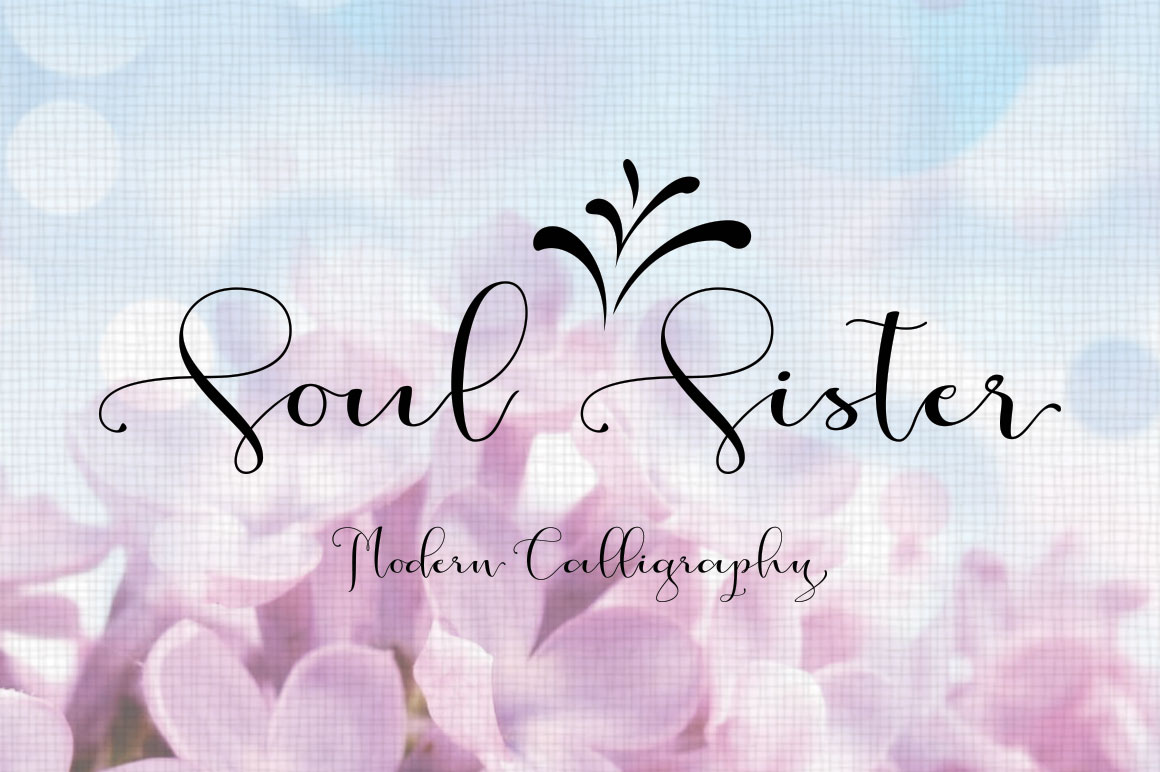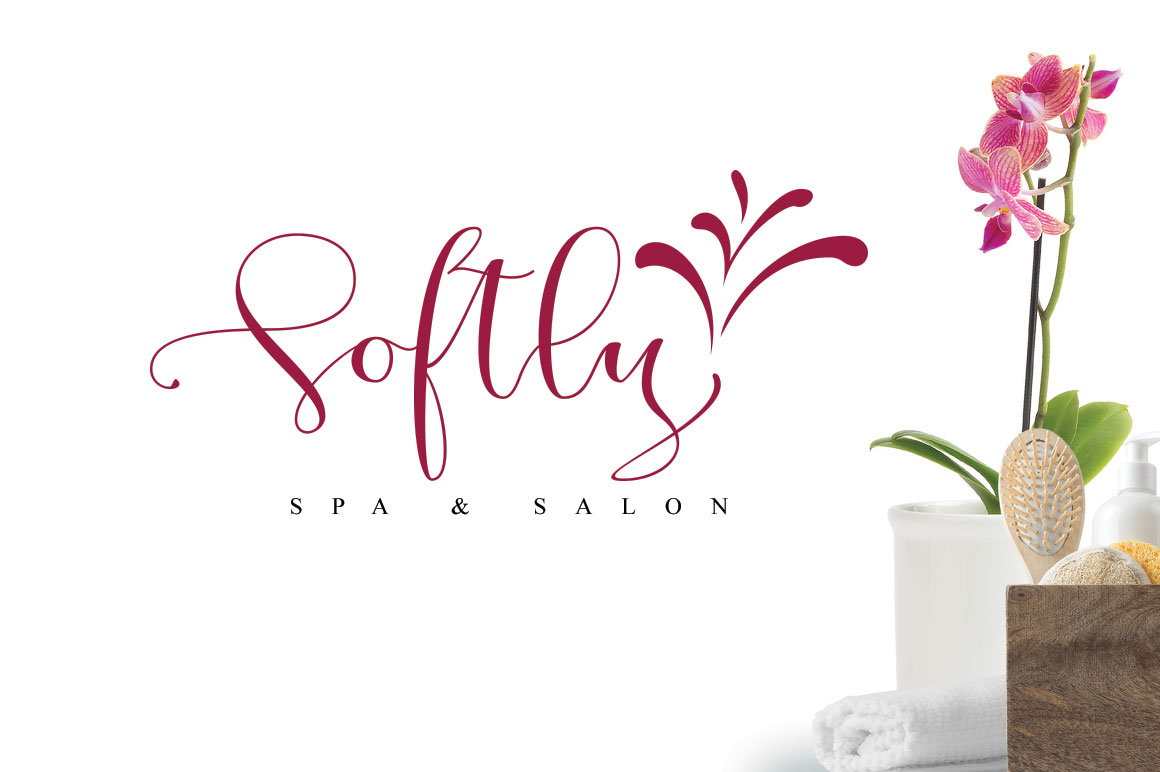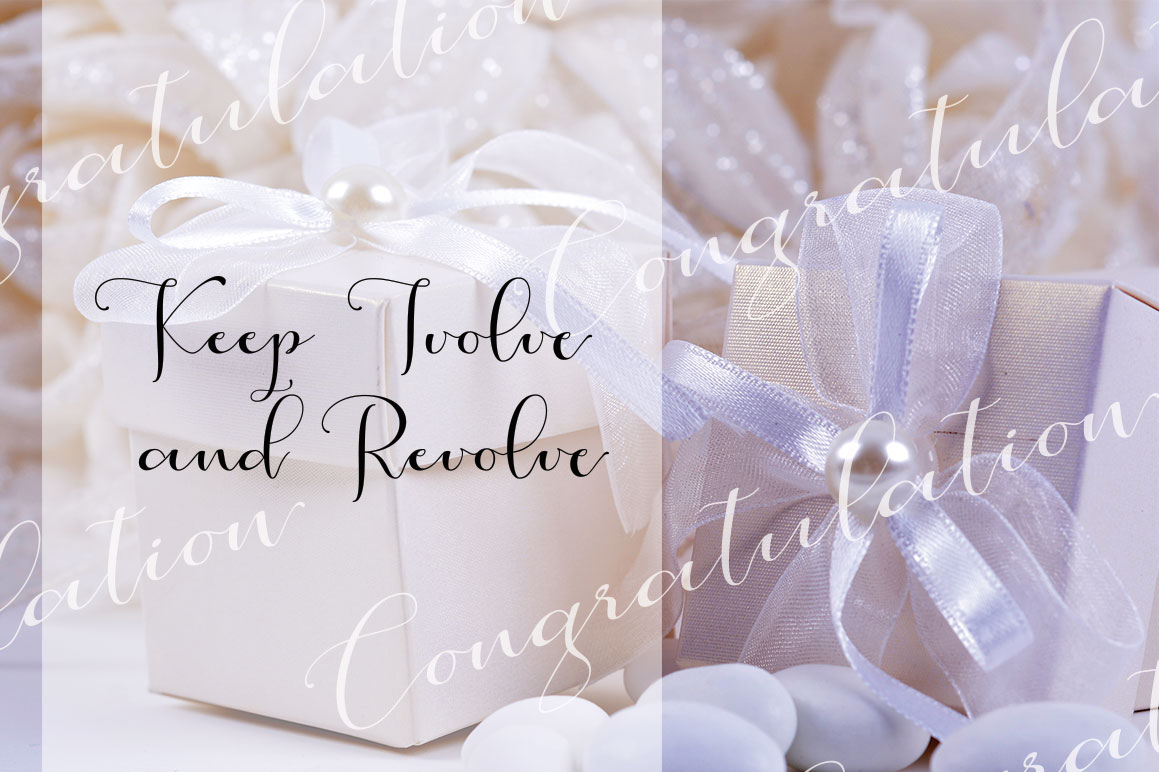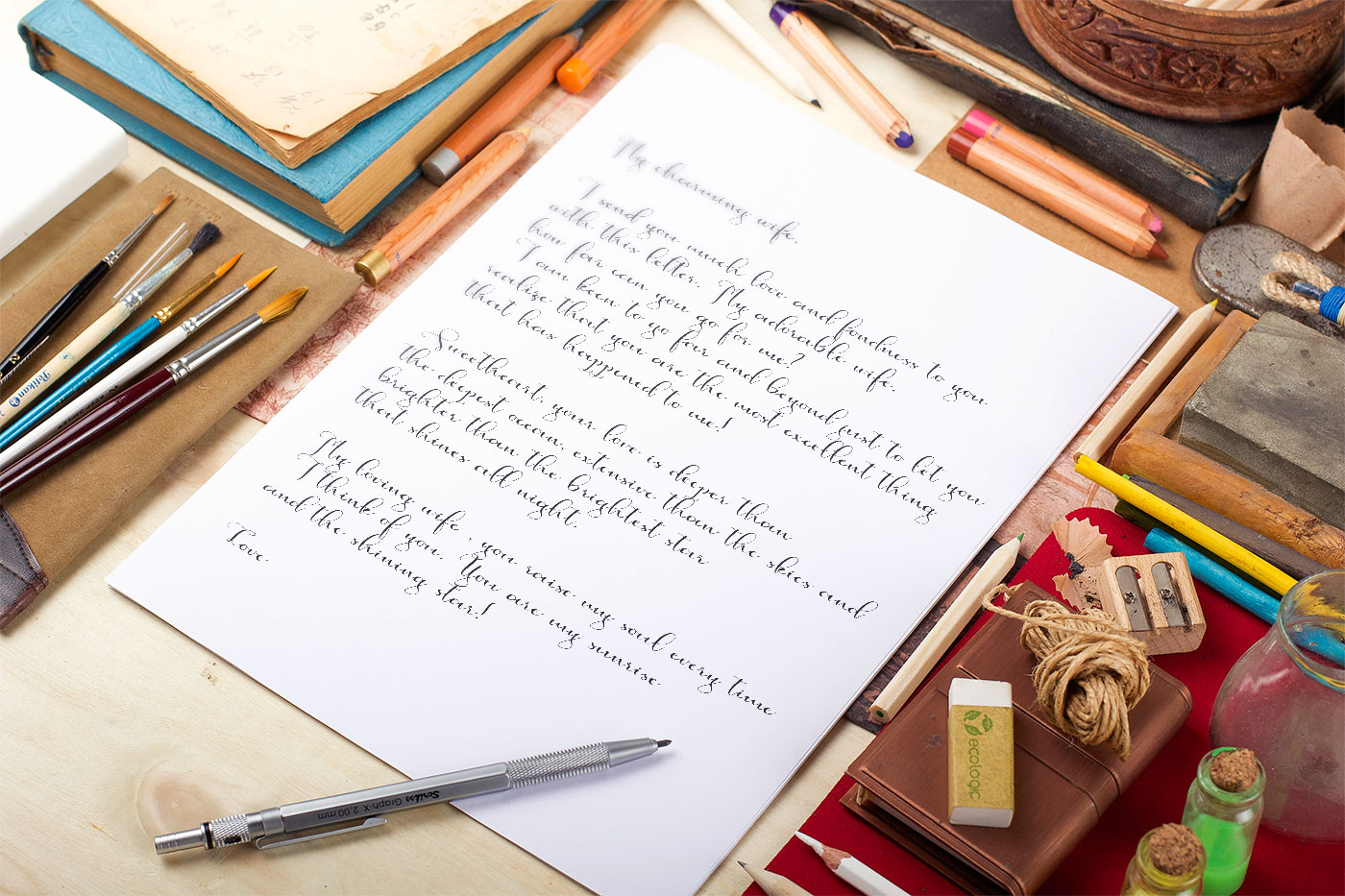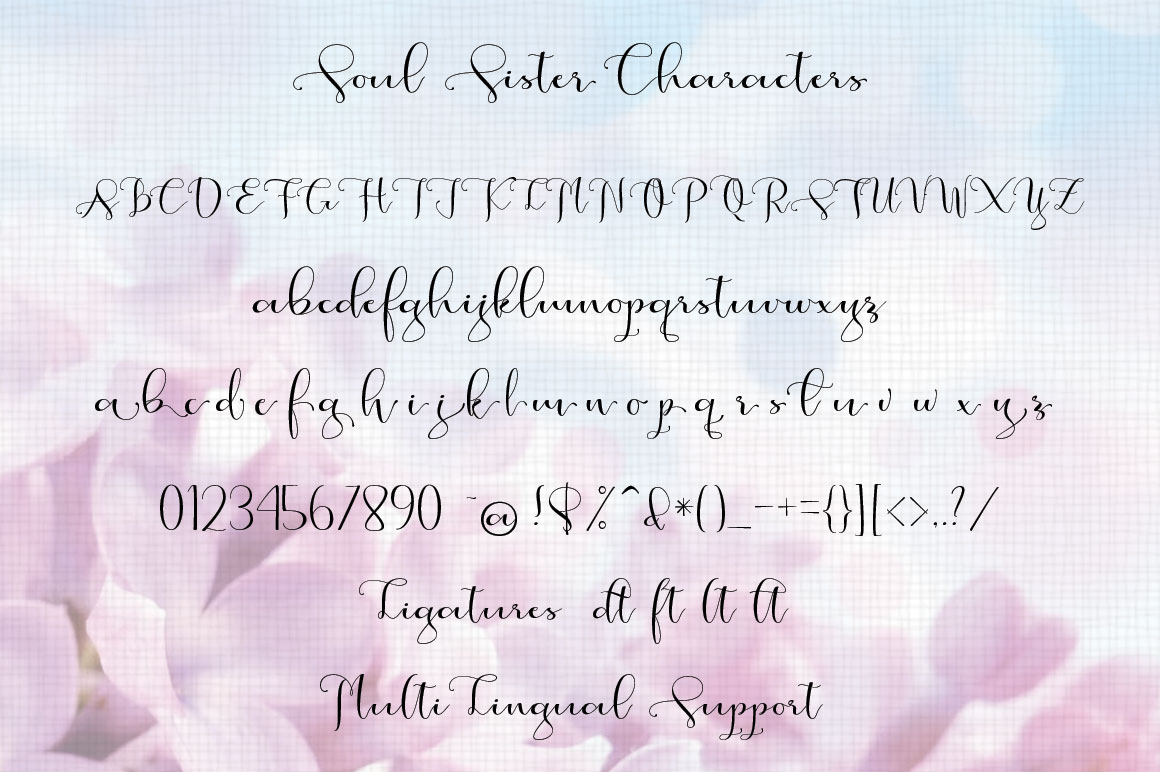
Soul Sister Font
About Soul Sister Font
Soul Sister is a classic looking, elegant typeface. It is packed with class and was created with love.
Every glyphs is carefully created to match the rest and the font is packed with kerning pairs to ensure a natural flow.